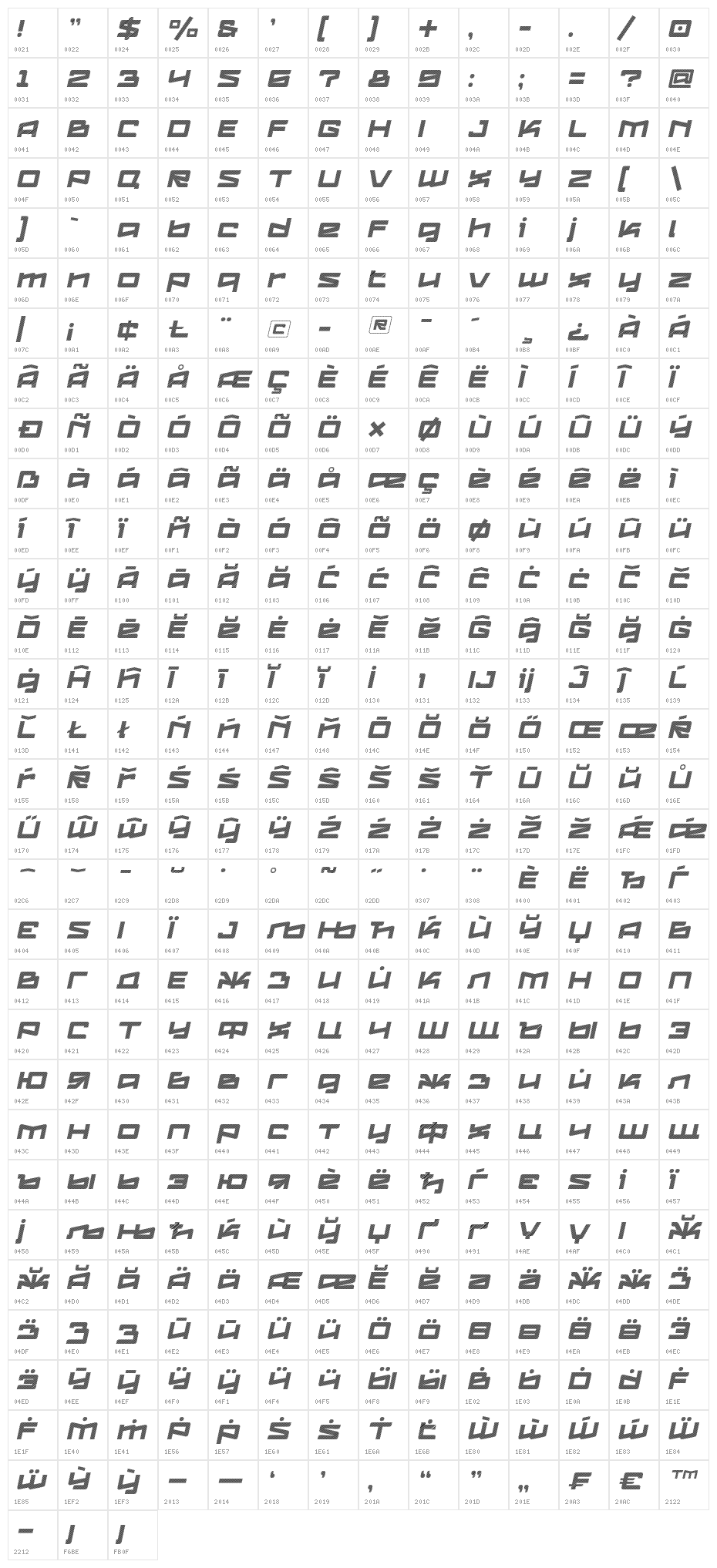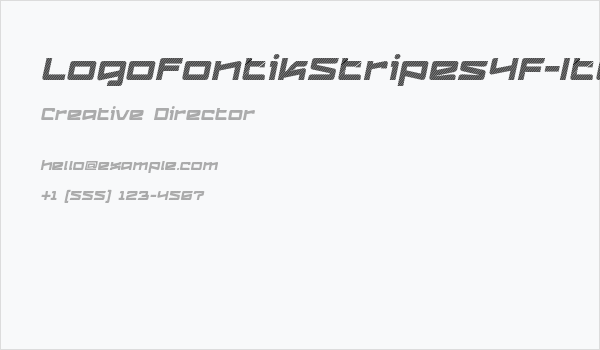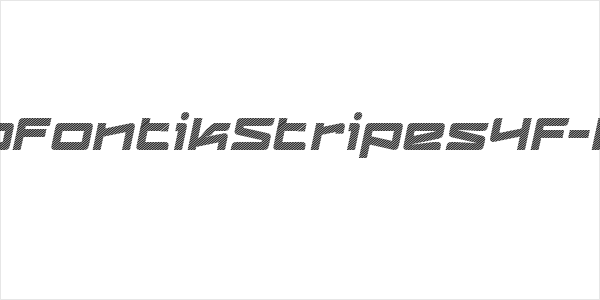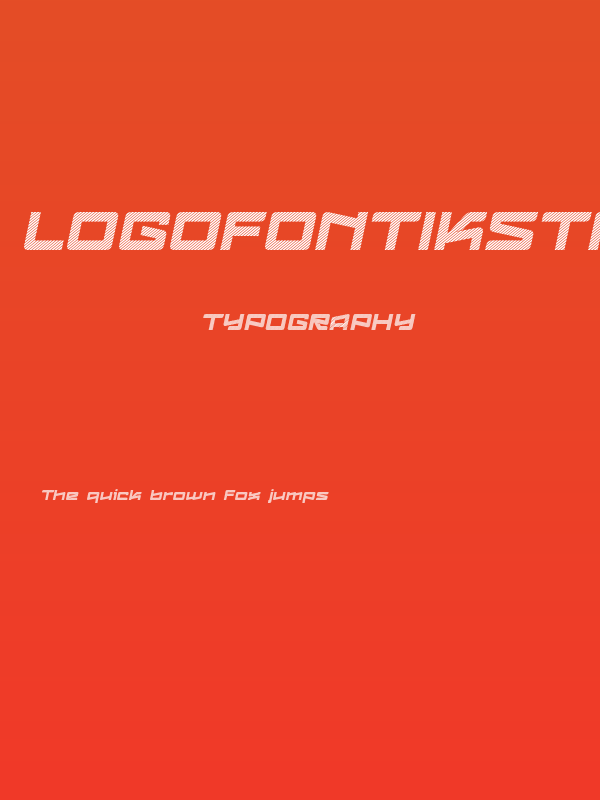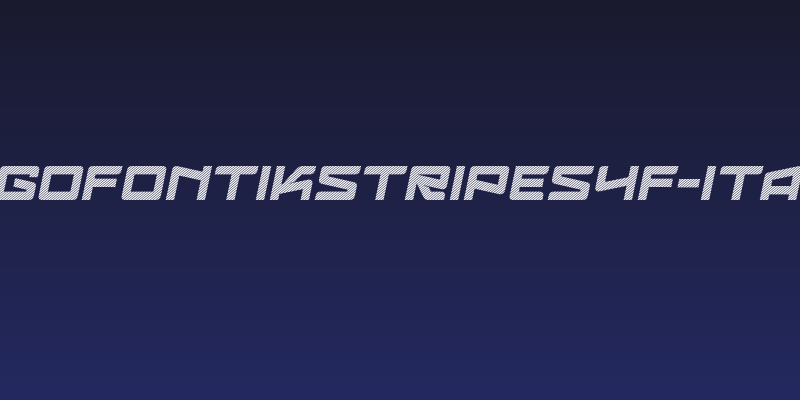
LogofontikStripes4F-Italic Font
LogofontikStripes4F-Italic Description
This font features a unique striped pattern across each character, giving it a dynamic and textured appearance. The characters are slightly italicized, adding a sense of motion and fluidity. The uppercase and lowercase letters maintain a consistent style, with sharp angles and clean lines. Numbers and special characters are designed to match the overall aesthetic, ensuring a cohesive look. The font's distinct style makes it stand out, ideal for projects that require a bold and modern touch.
| Proposed Projects | Ideal for branding, logos, sports team merchandise, and modern advertising campaigns. |